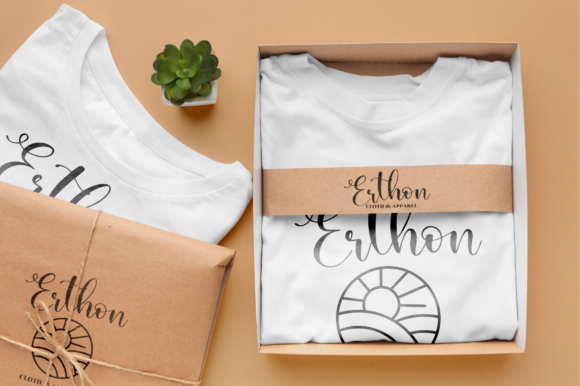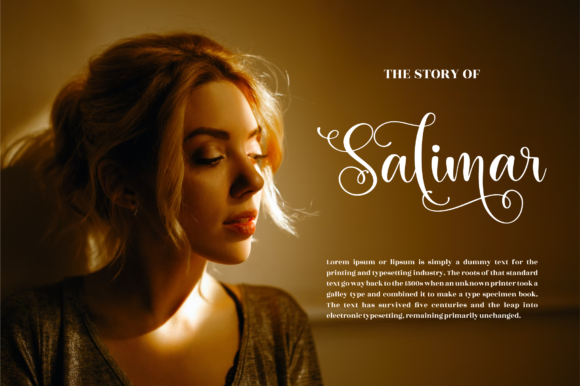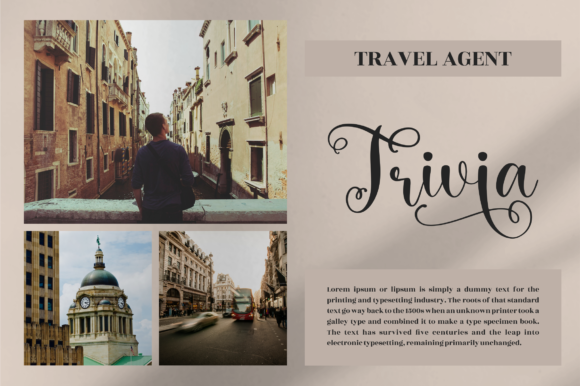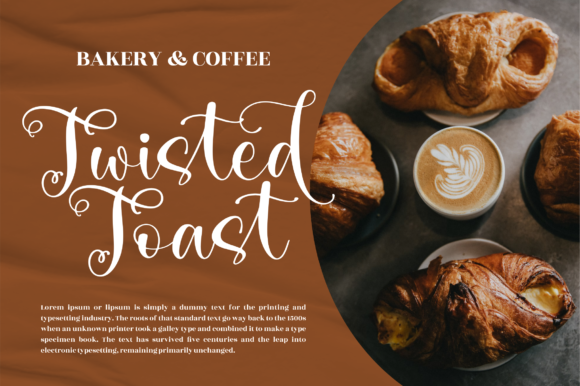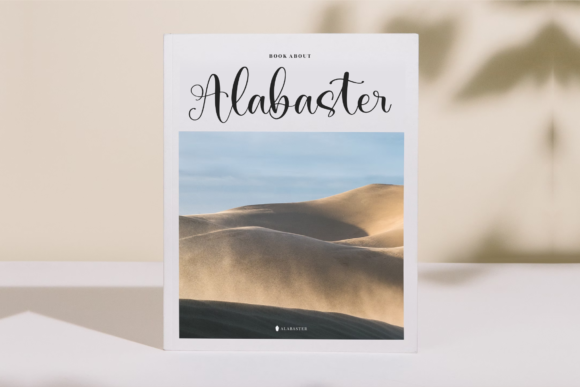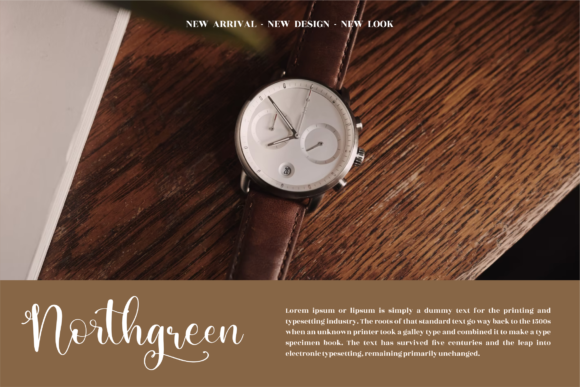
Introduction to Salmah Font
Remember that moment when you’re working on a creative project, and you need the perfect font to elevate your design? It’s like searching for the missing piece of a puzzle. You want something that exudes elegance and sophistication, something that will leave a lasting impression on your audience.
That’s where the Salmah Font comes in – a chic, refined script font that’s about to become your new best friend. With its high-quality design and stylish alternates, this font is the ultimate design resource for any creative project. Whether you’re working on a branding project or a digital design, the Salmah Font is sure to impress.
Key Features of Salmah Font
- High-quality design: Salmah Font is a meticulously crafted typeface, perfect for creative projects that demand attention to detail.
- Unique script style: Salmah Font boasts a distinctive script style that adds a touch of elegance and sophistication to any design project.
Honest Review: Salmah Font
As a designer, I’m always on the lookout for high-quality design resources to elevate my creative projects. Recently, I stumbled upon the Salmah Font, and I’m excited to share my honest review with you.
- ✨ The Salmah Font features a beautiful, transparent background that adds a touch of elegance to any design.
- ✨ The font is highly versatile and can be used for a wide range of creative projects, from branding to typography-based art.
- ⚠️ The font may not be suitable for all types of designs, particularly those that require a bold or condensed font style.
- ⚠️ The font’s transparency may not work well with complex backgrounds or images.
Overall, I’m impressed with the Salmah Font’s high quality and versatility. While it may have some limitations, it’s definitely a valuable addition to any designer’s toolkit. If you’re looking for a beautiful, free font to elevate your creative projects, I highly recommend giving the Salmah Font a try.
The Salmah Font is a high-quality, free download design resource perfect for creative projects. With its unique style and transparent background, this font is ideal for designers looking for a versatile and easy-to-use design element.
Common Use Cases for Salmah Font
The Salmah Font is ideal for a variety of creative projects, including branding, marketing materials, and digital designs. Its high-quality design and transparent background make it perfect for use in logos, graphics, and other visual elements.